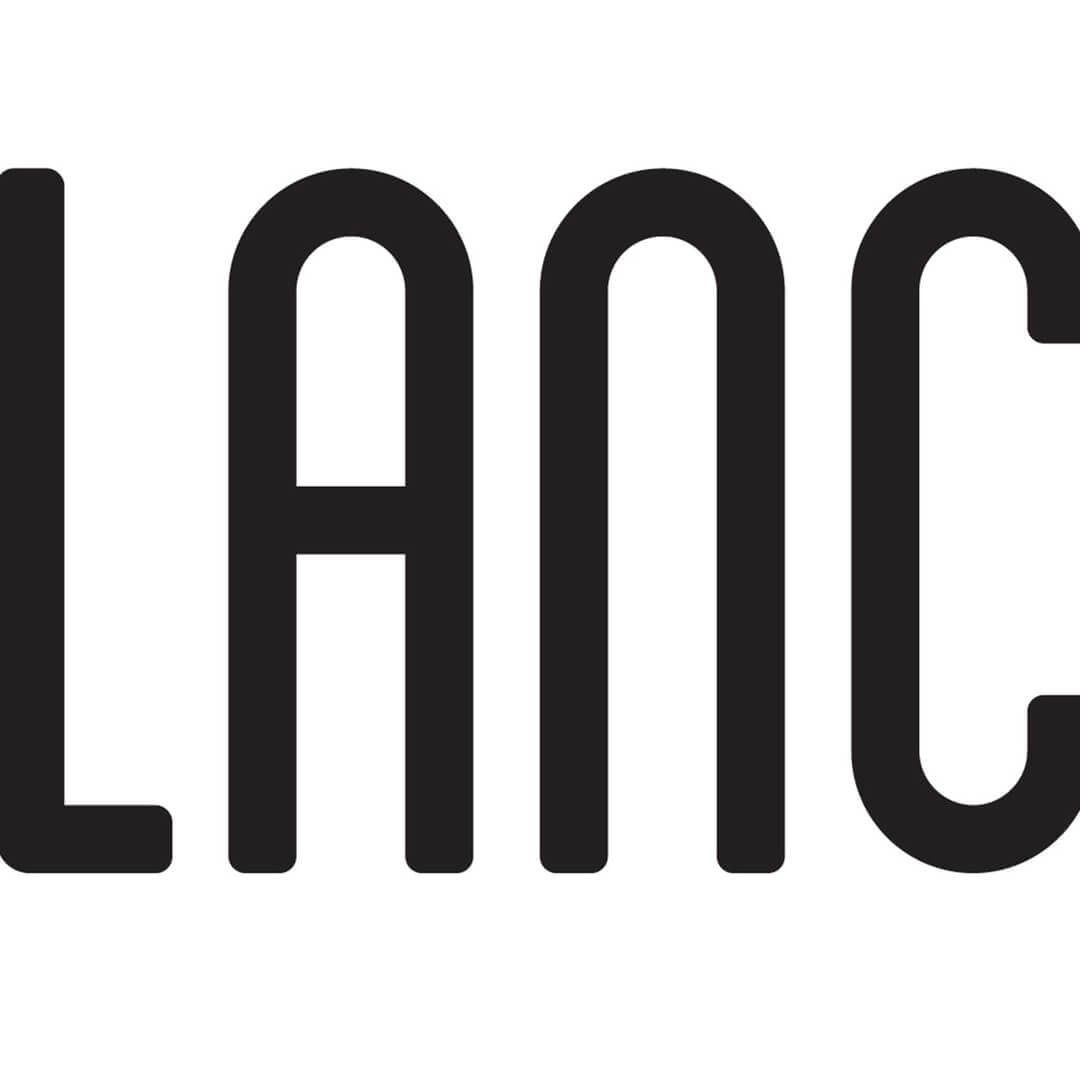
Atipus created a modular typeface family as a central element of Fruita Blanch’s visual identity. The Blanch font blends mid-century sans serif influences with a contemporary modular structure, giving the brand a distinctive and timeless character.